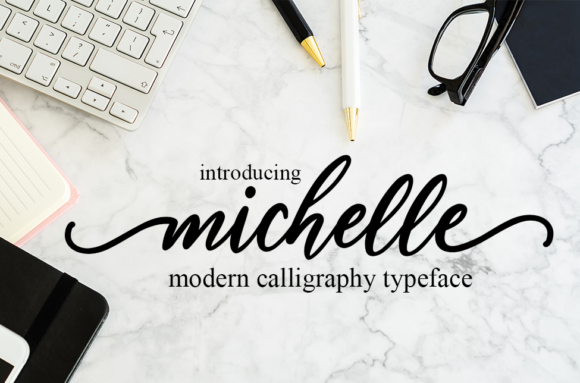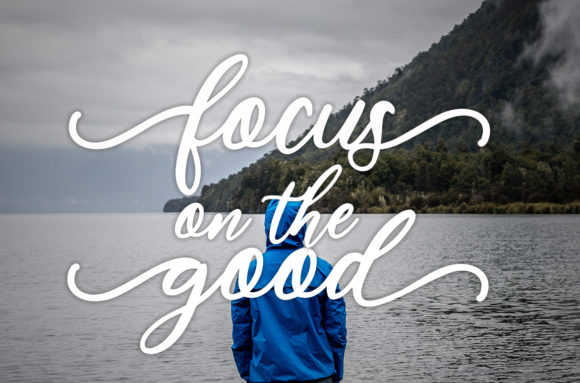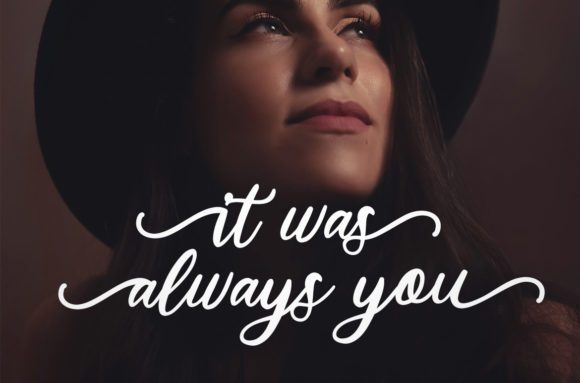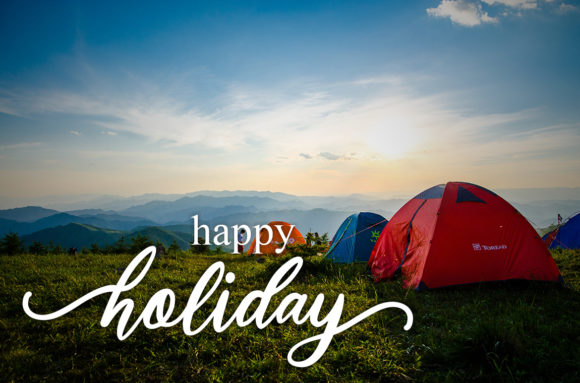
Michelle Font
About Michelle Font
Michelle is a stunning handwritten font that updates classic calligraphy with a contemporary twist. Fall in love with its bold charm!